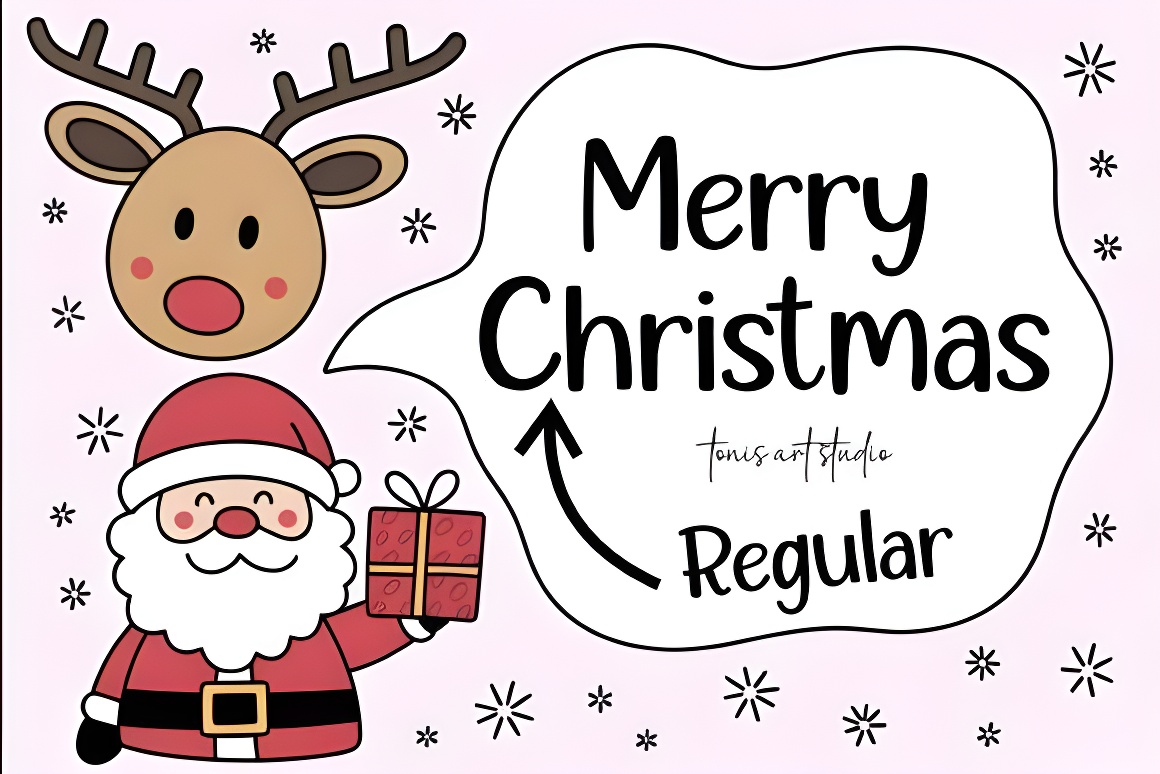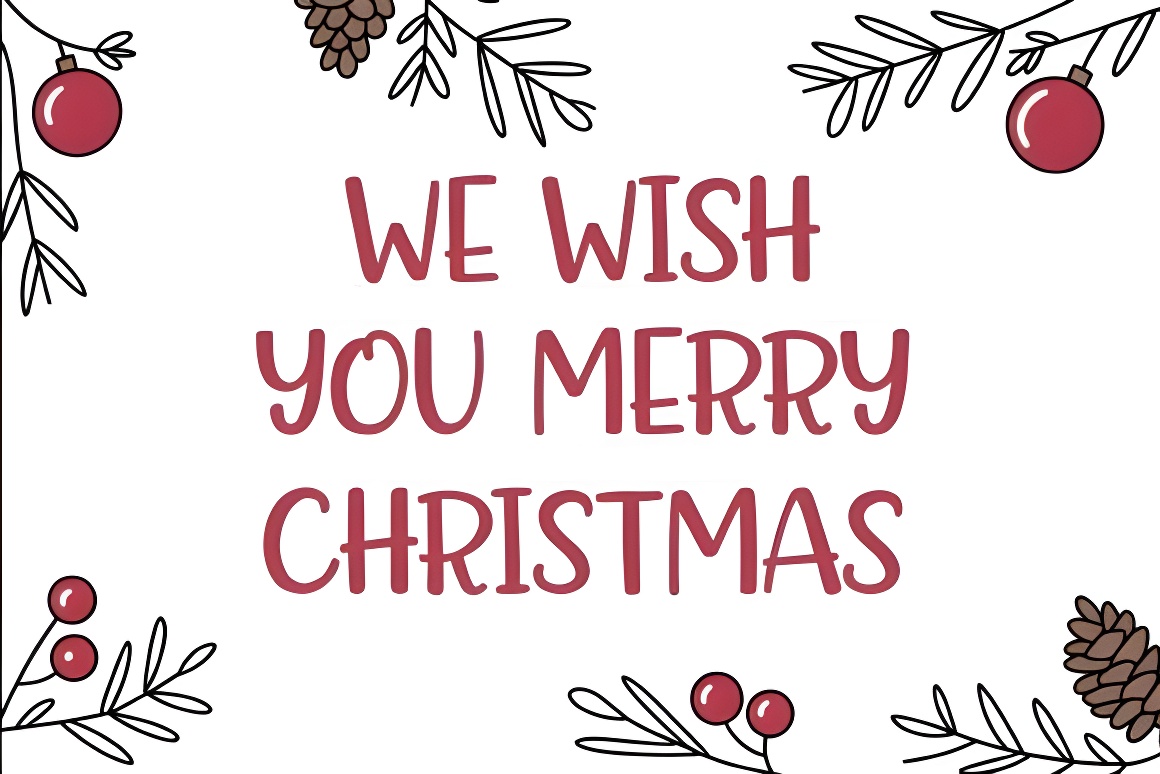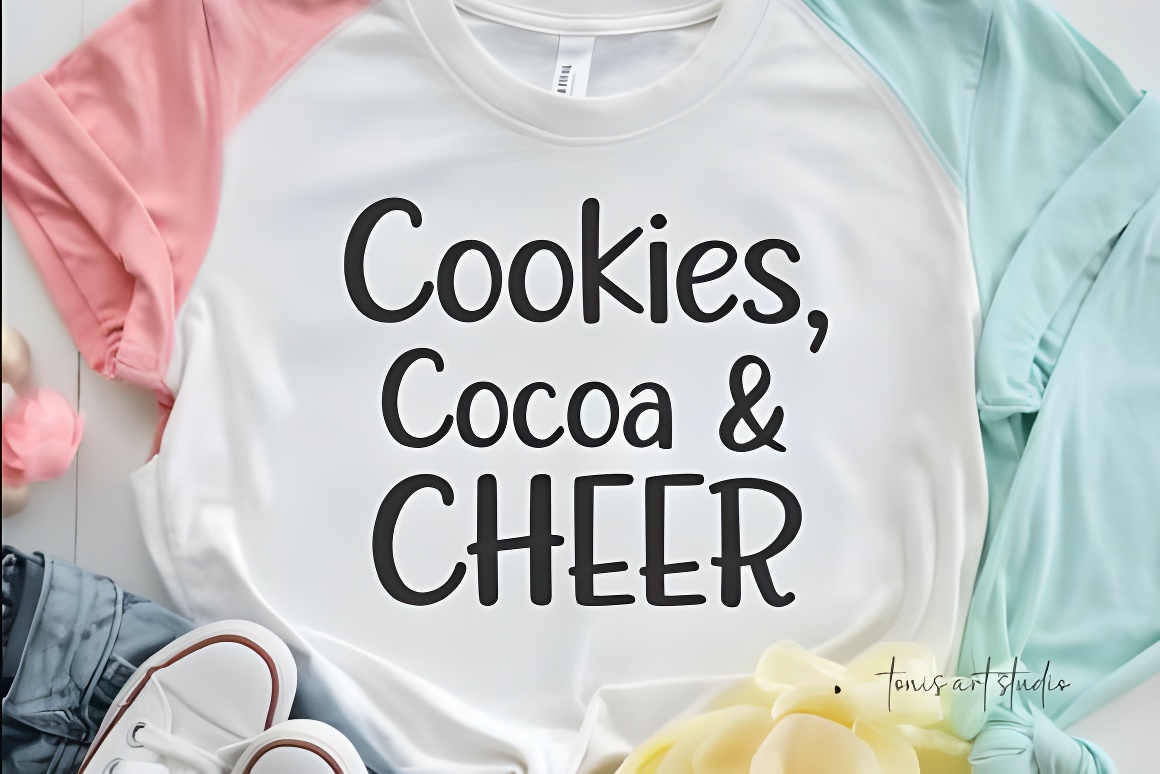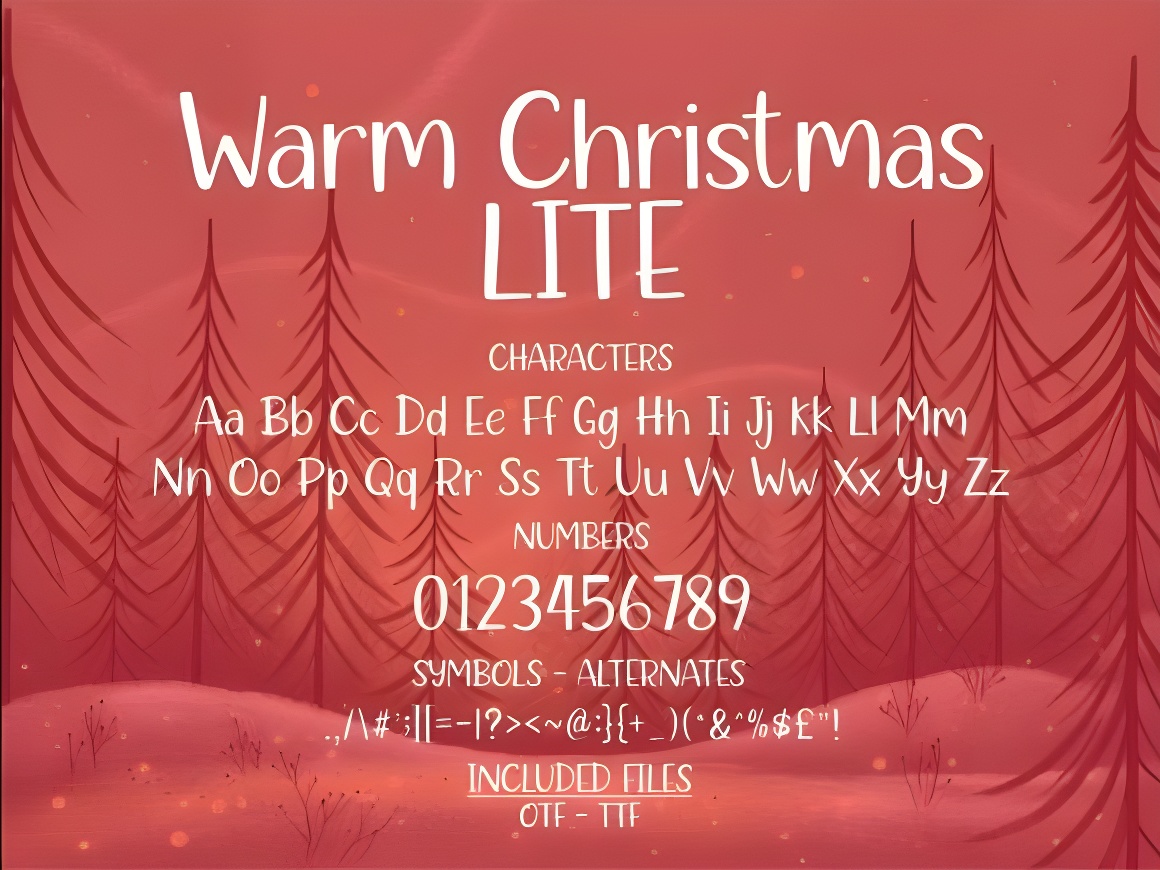
Warm Christmas Font Family: Handmade Holiday Typeface (4 Styles) Handmade Christmas font featuring Regular, Bold, Lite & Line styles with soft curves. Perfect for holiday cards, festive apparel, Cricut/Silhouette crafts & winter designs. Add cozy seasonal charm to your projects!